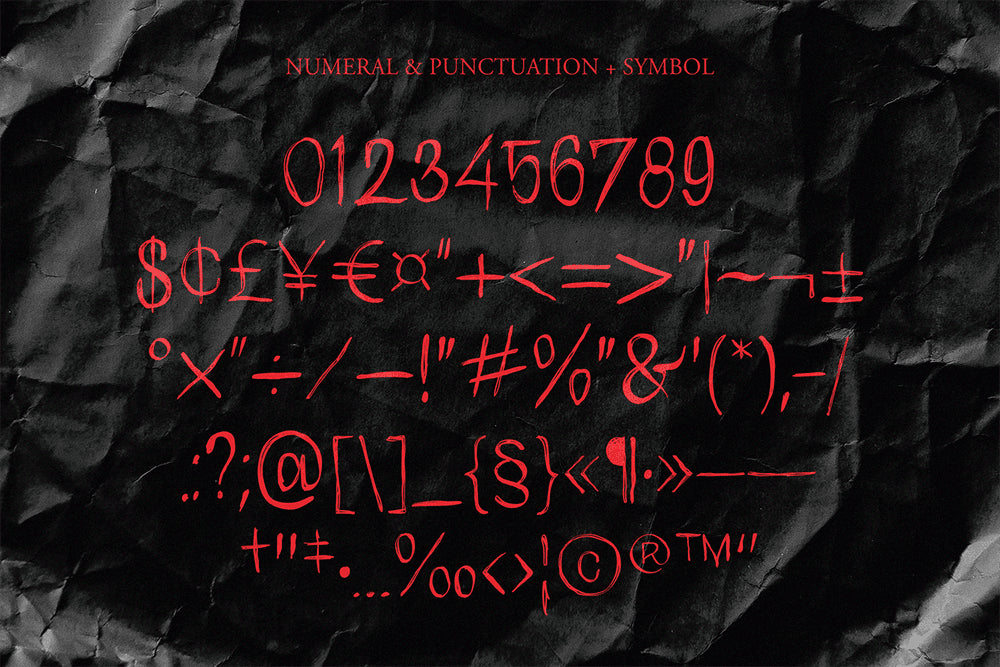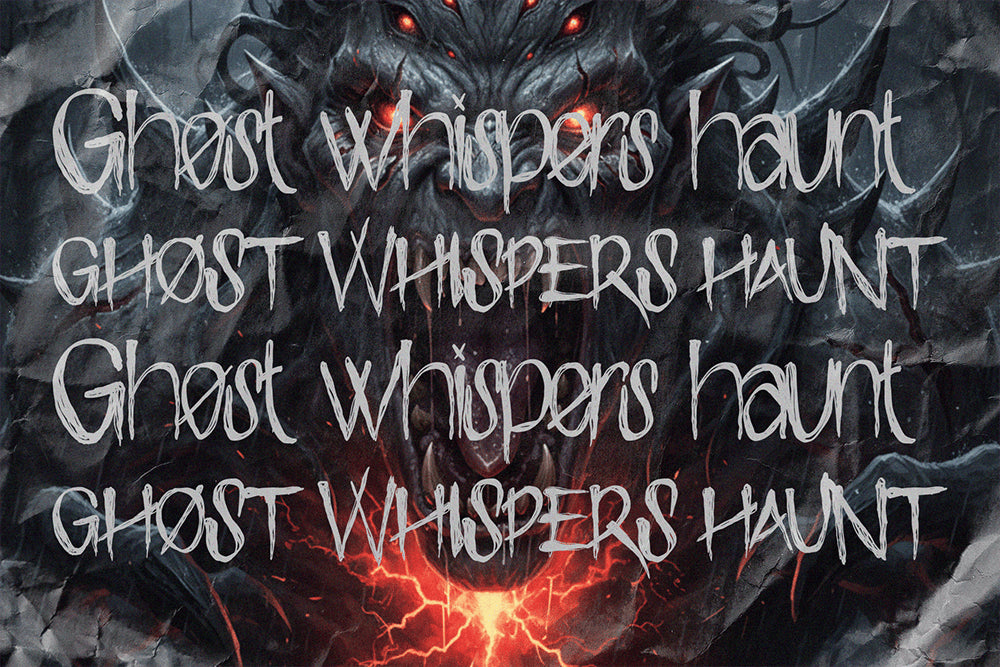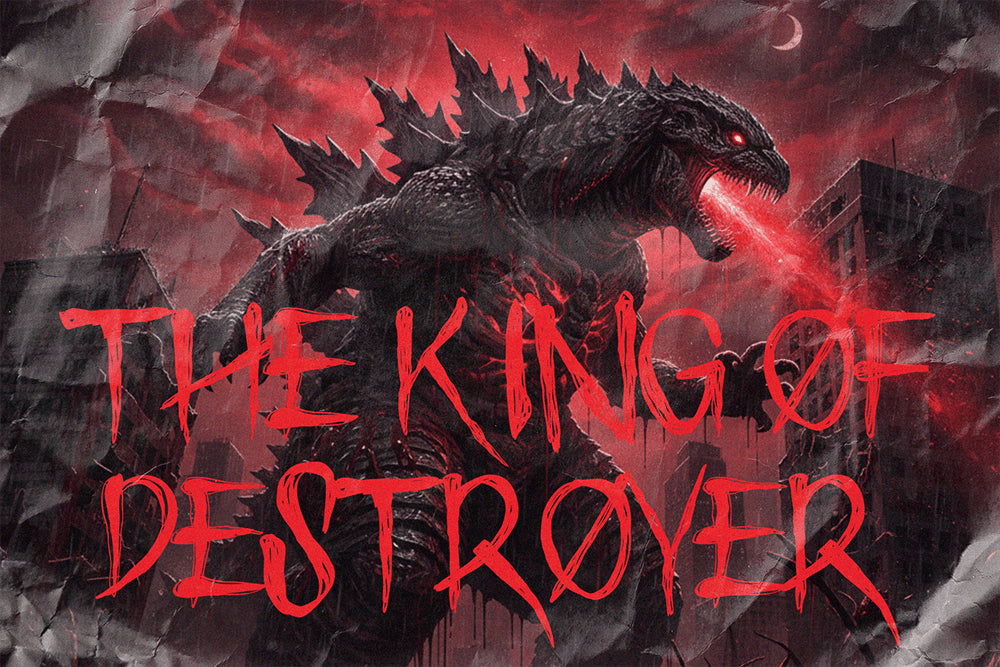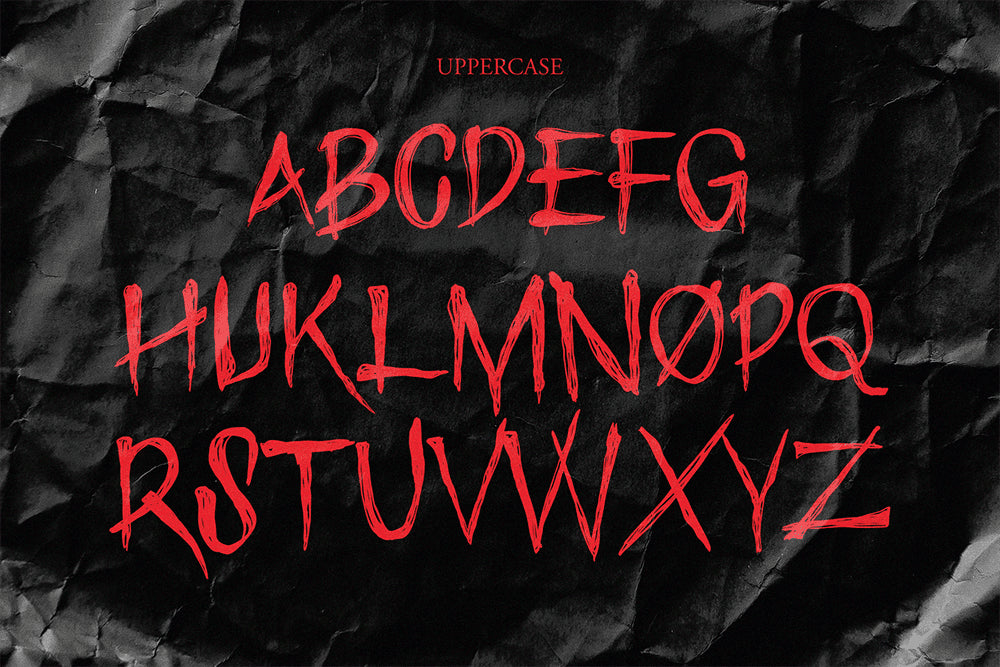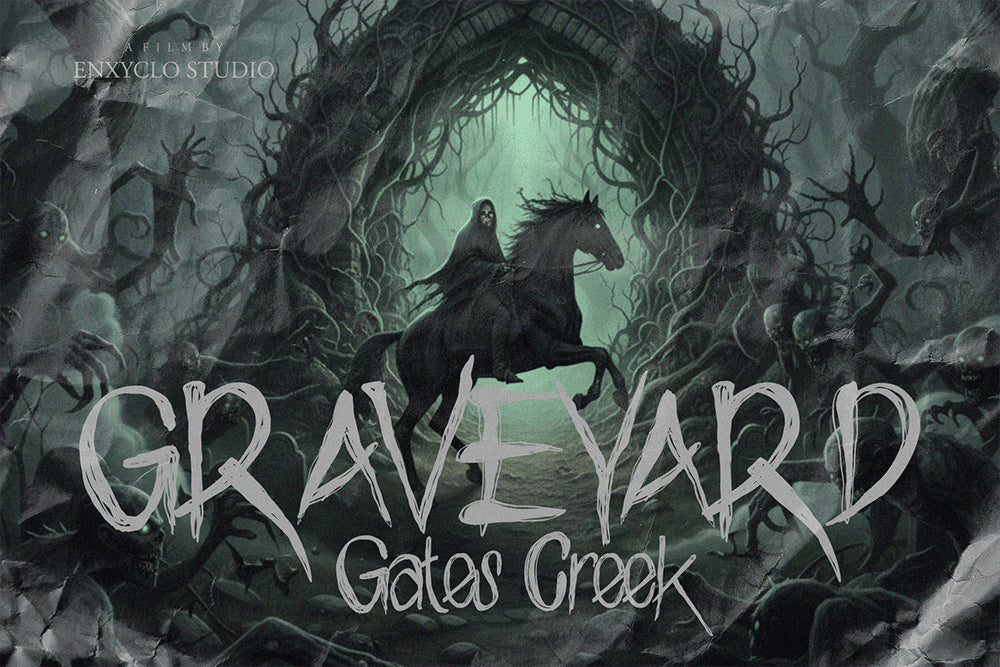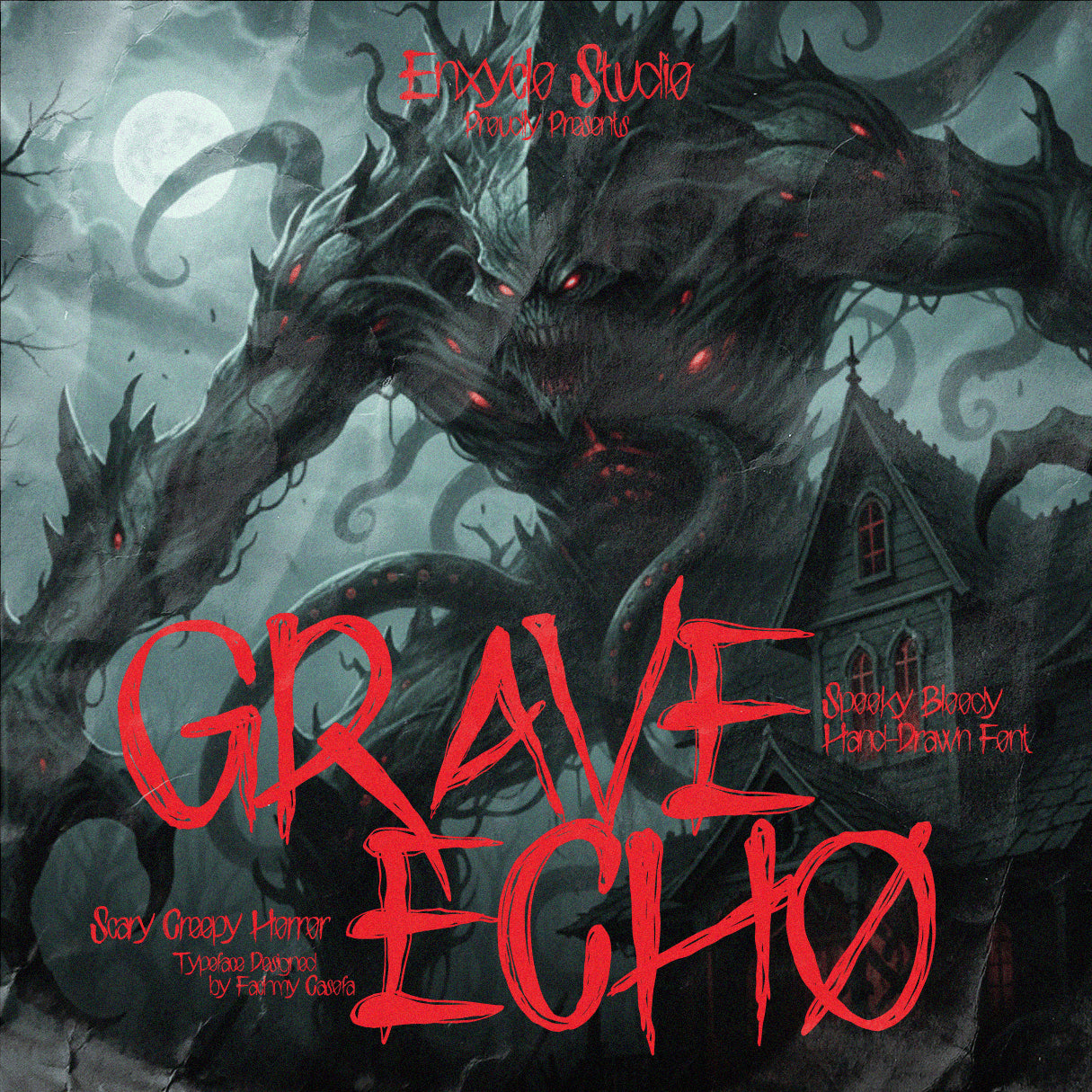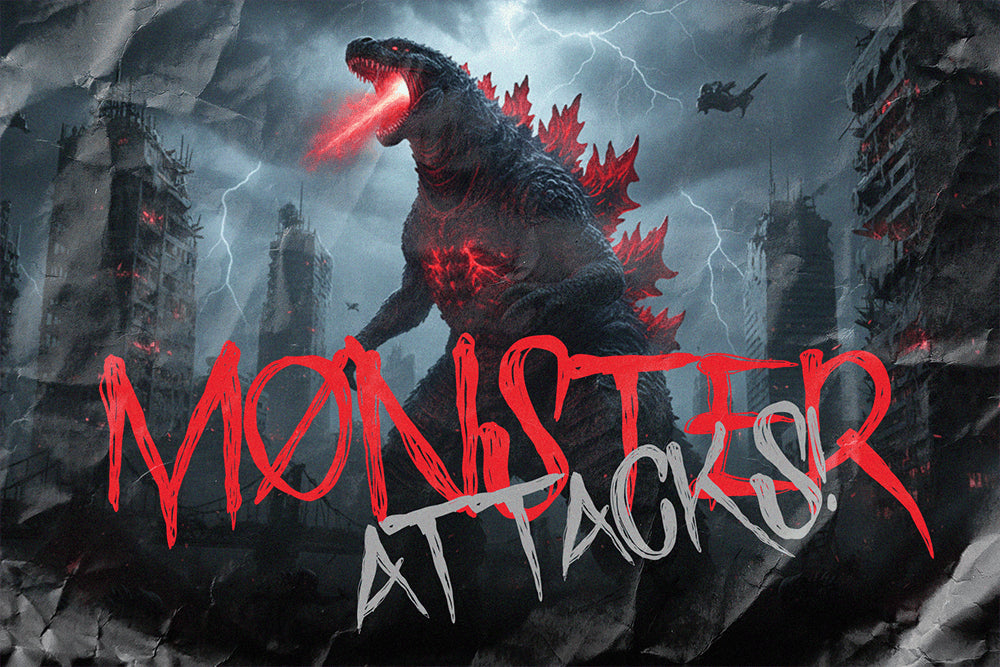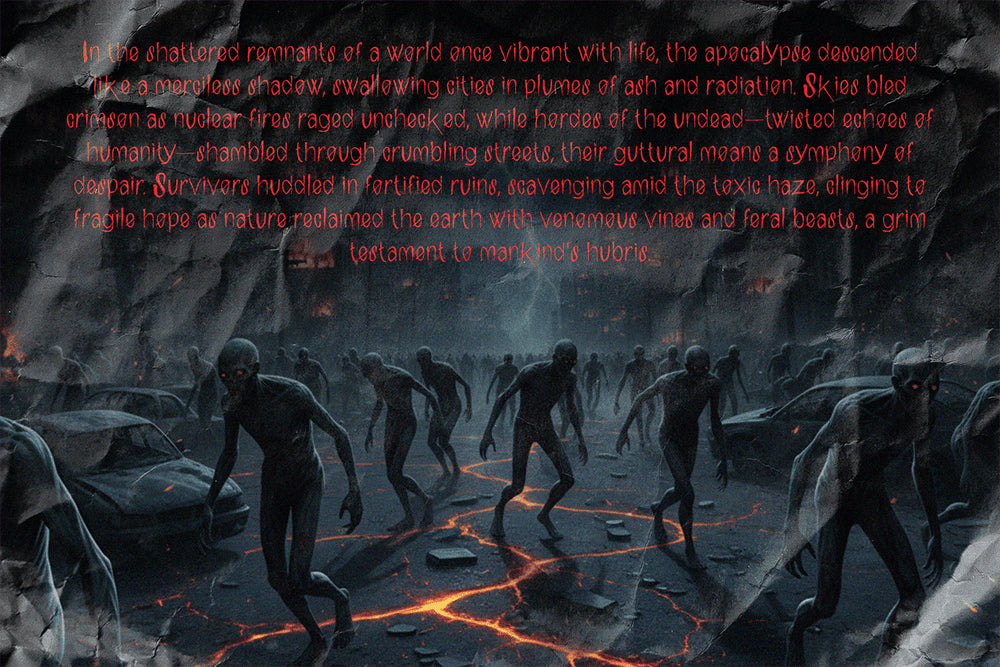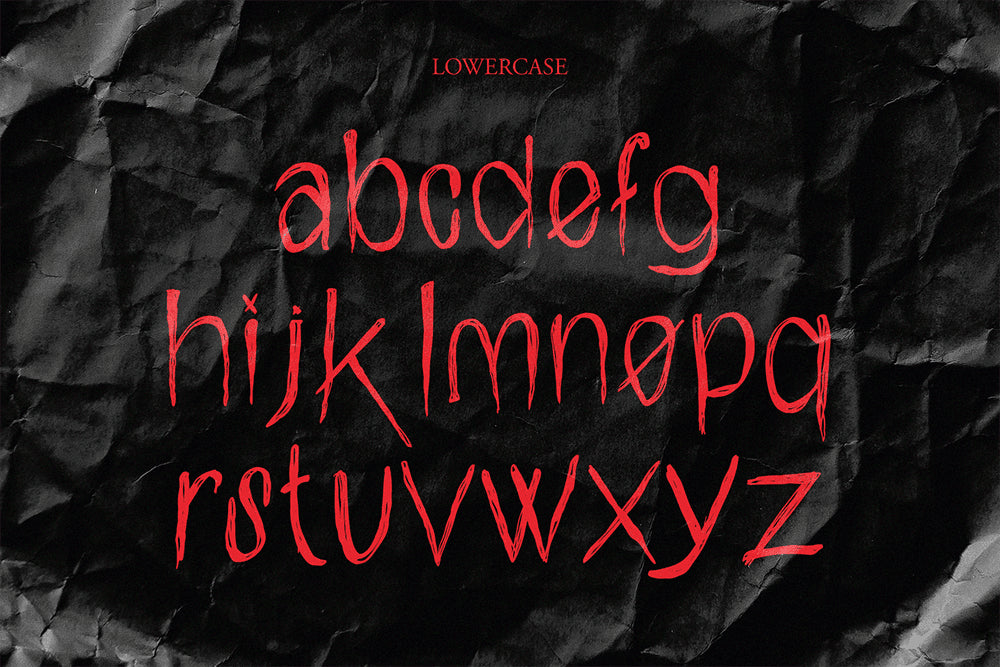
GRAVE ECHO — Horror Creepy Font
GRAVE ECHO is a bold display typeface designed to capture the essence of classic horror with its unique letterforms. It is available in True Type Font (TTF), Open Type Font (OTF), and Web Open Format (WOFF1 & WOFF2), featuring uppercase and lowercase letters, numerals, punctuation, and symbols.